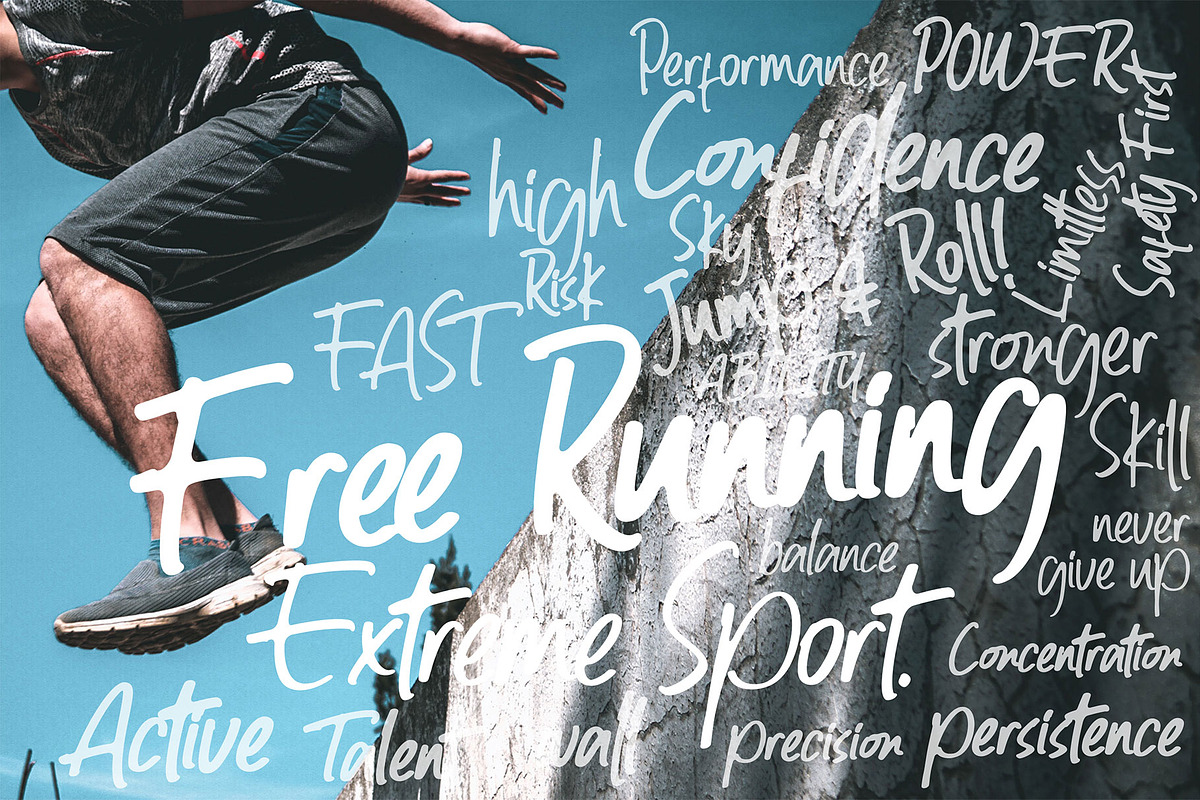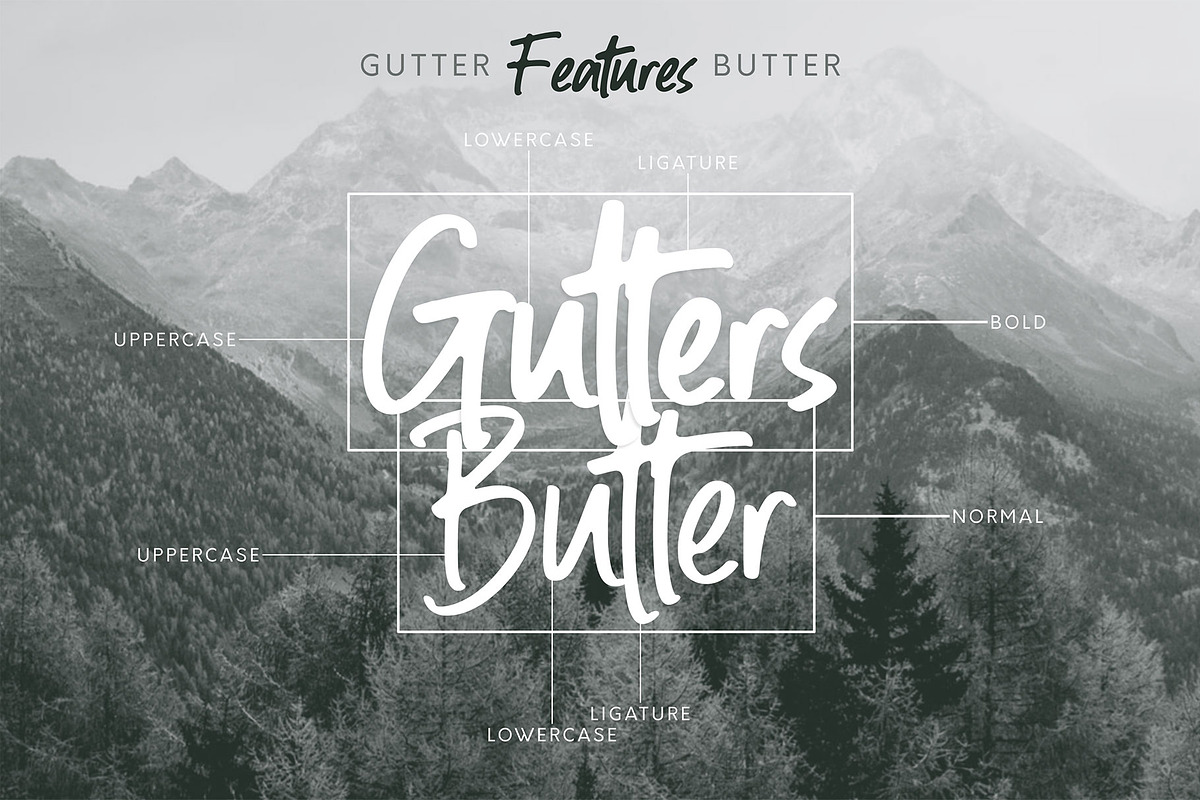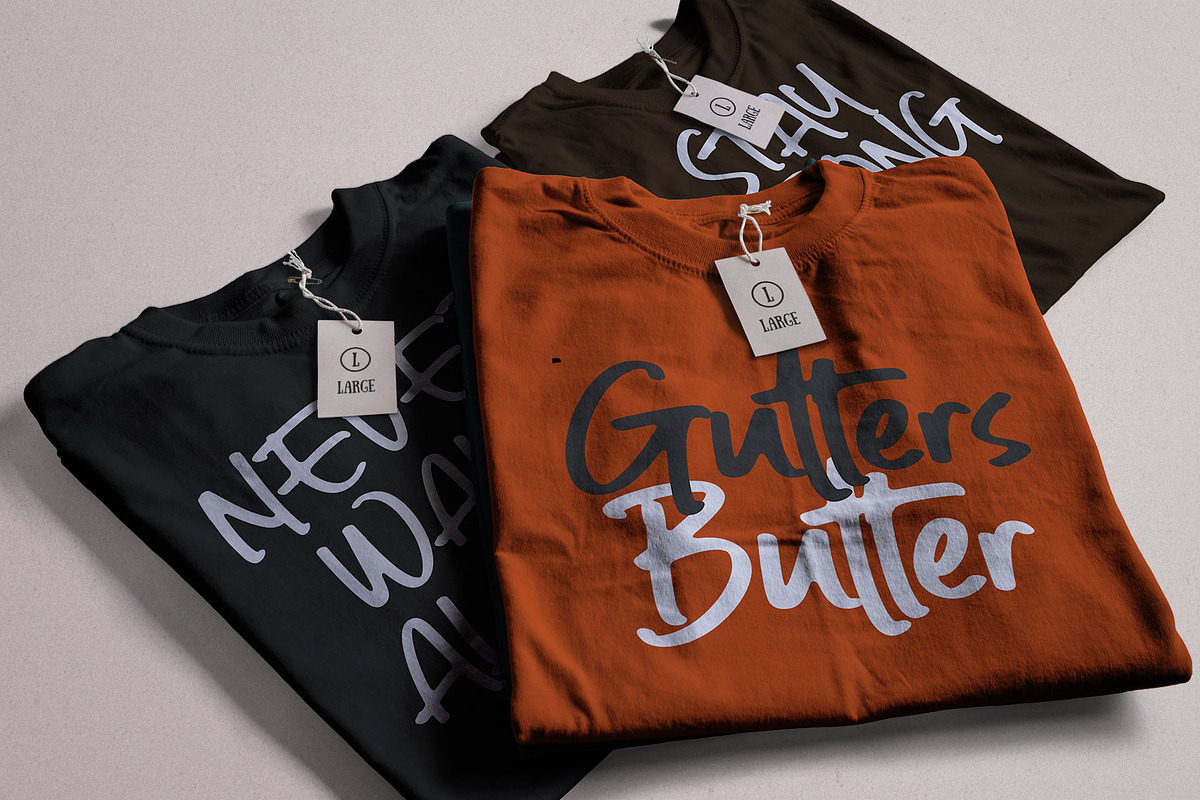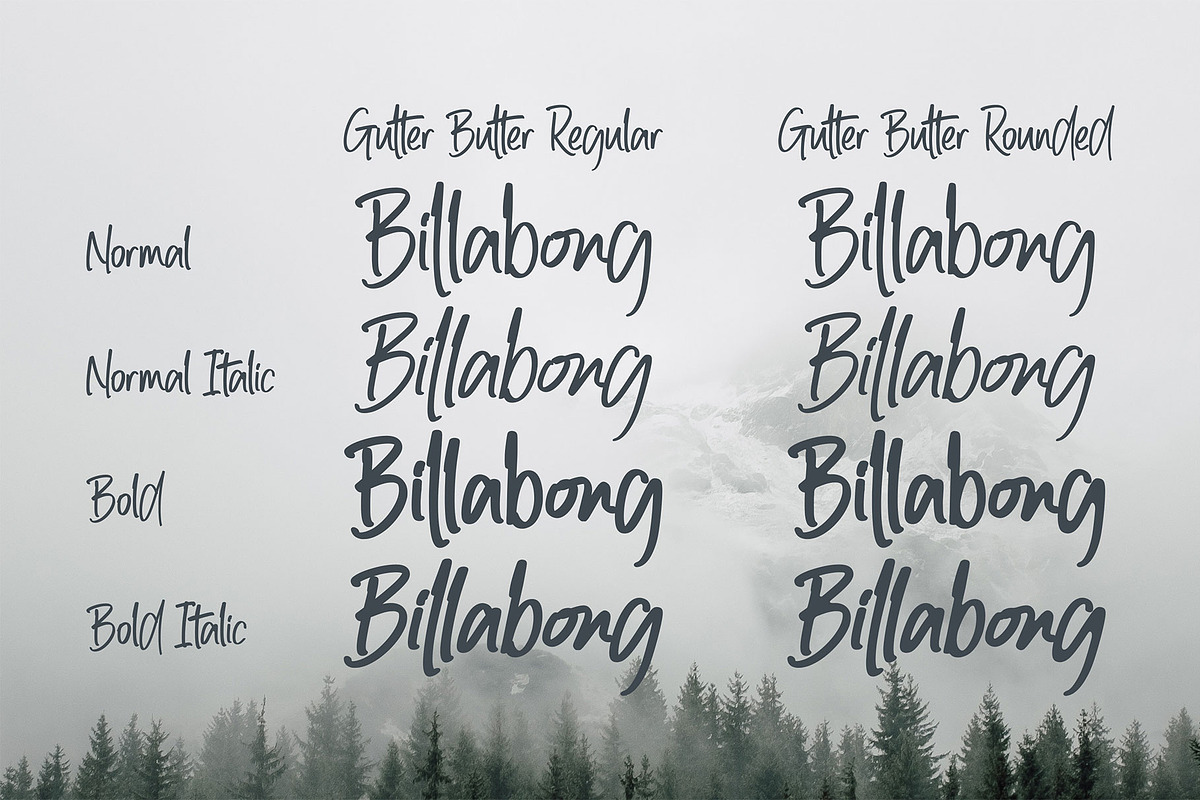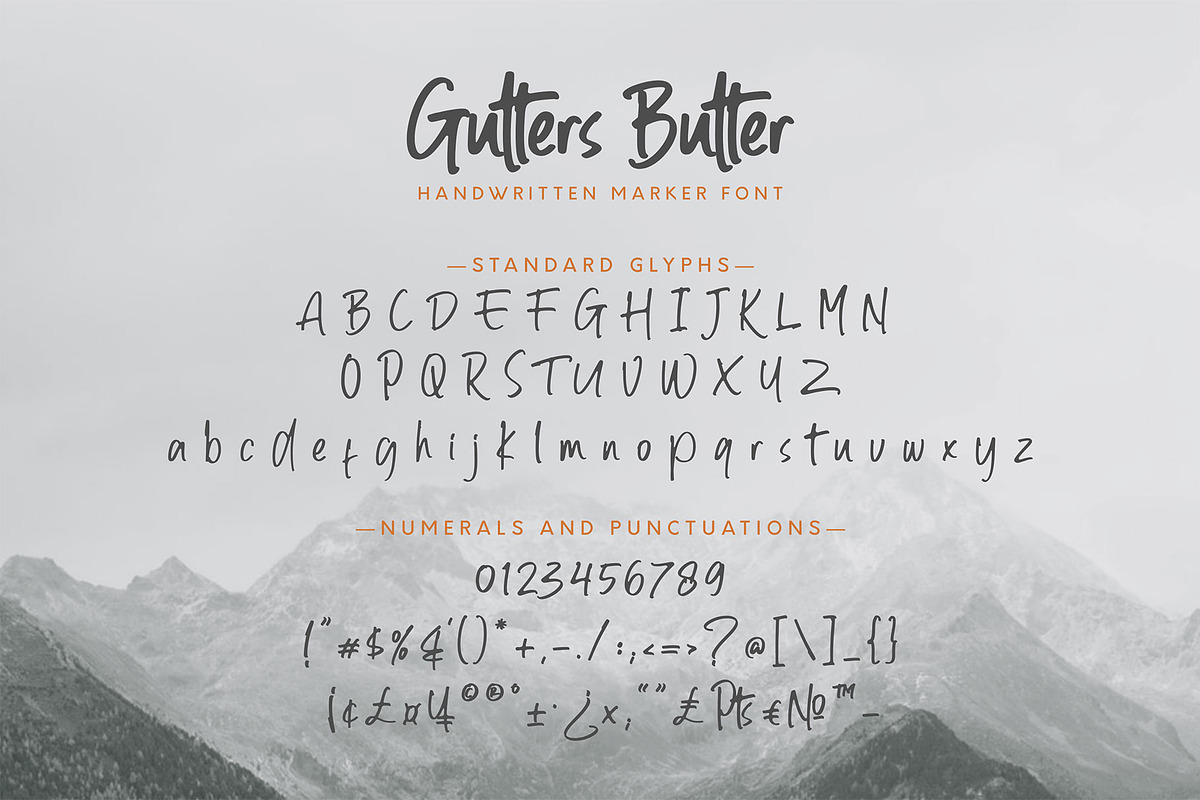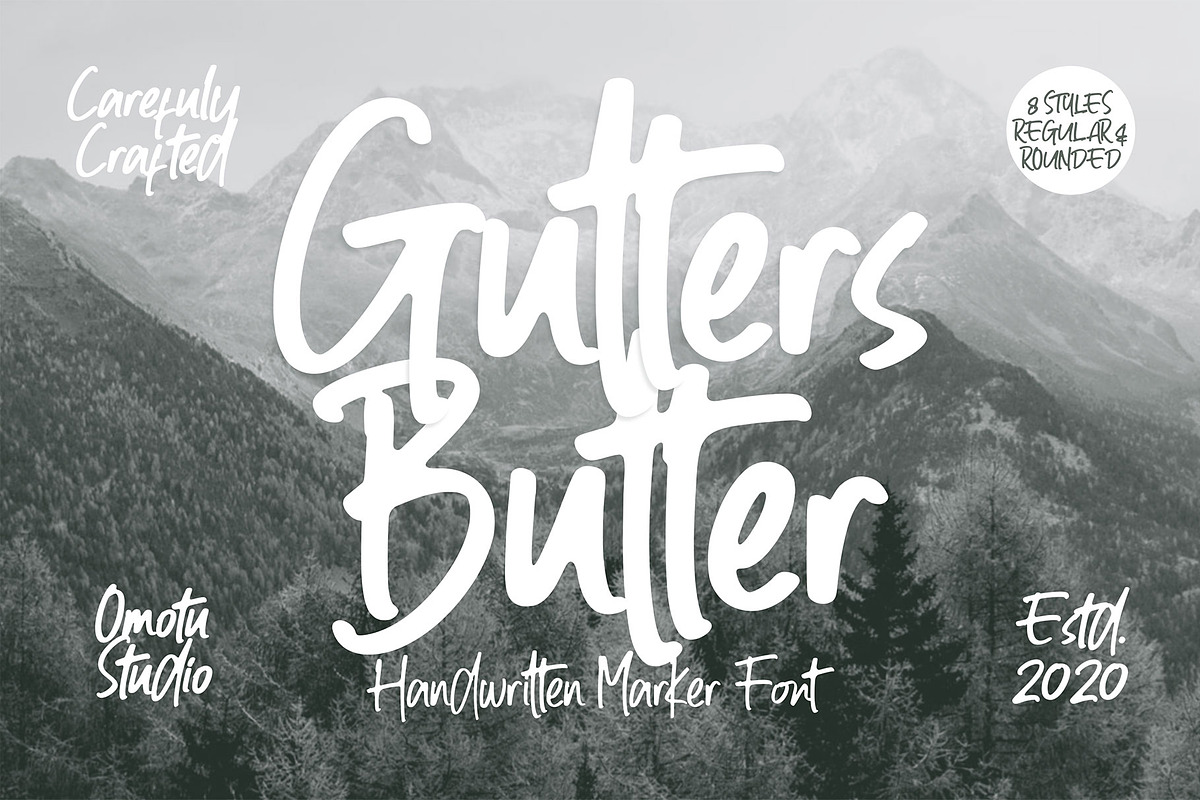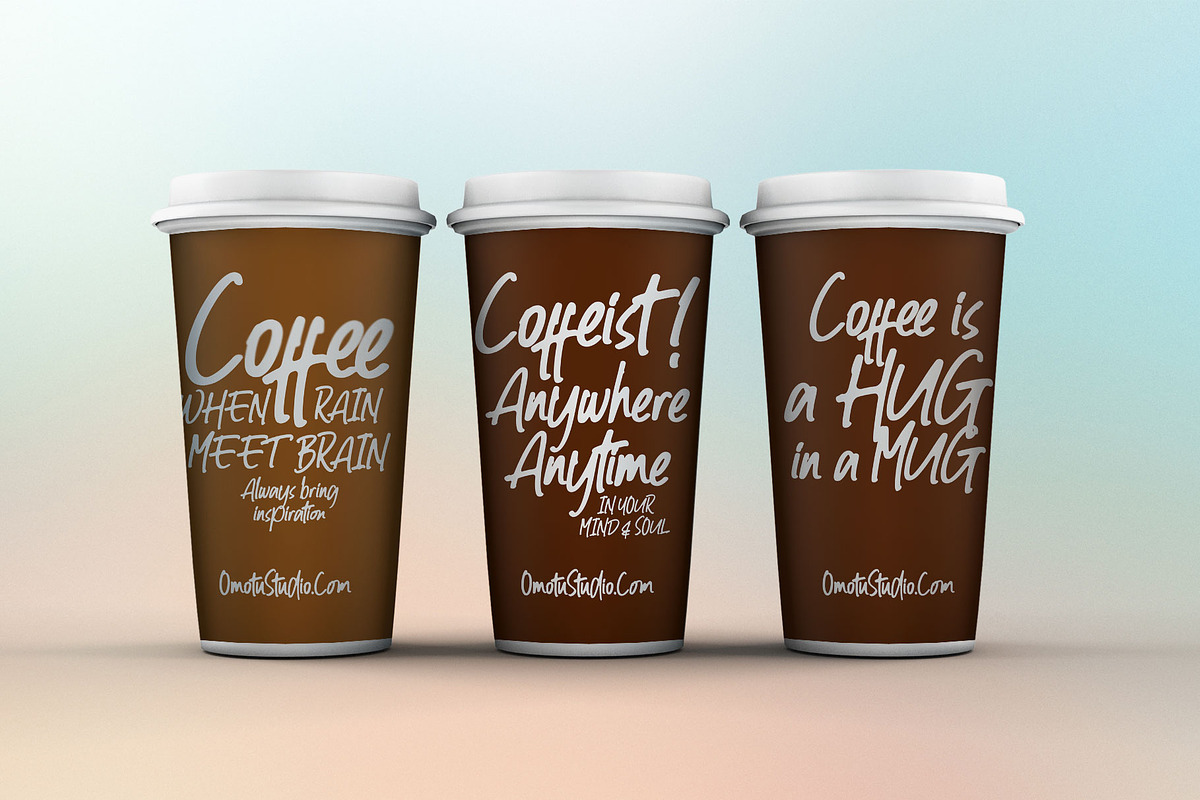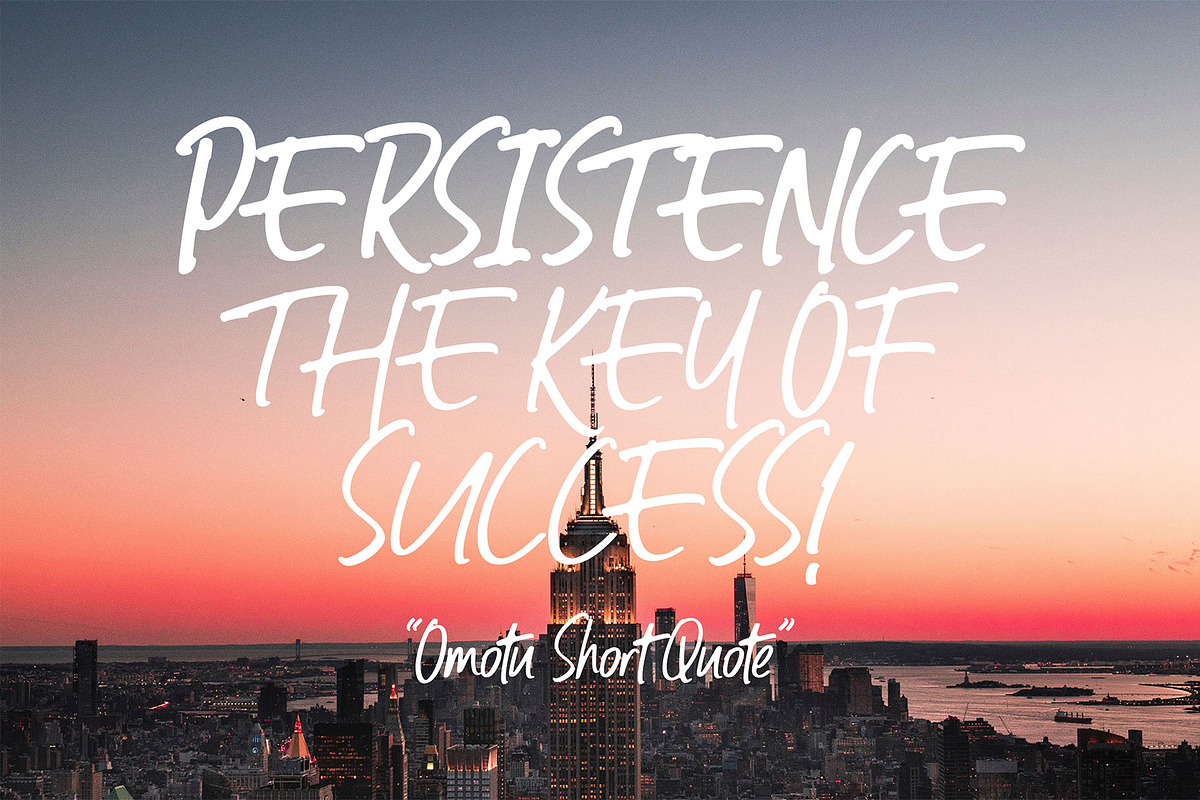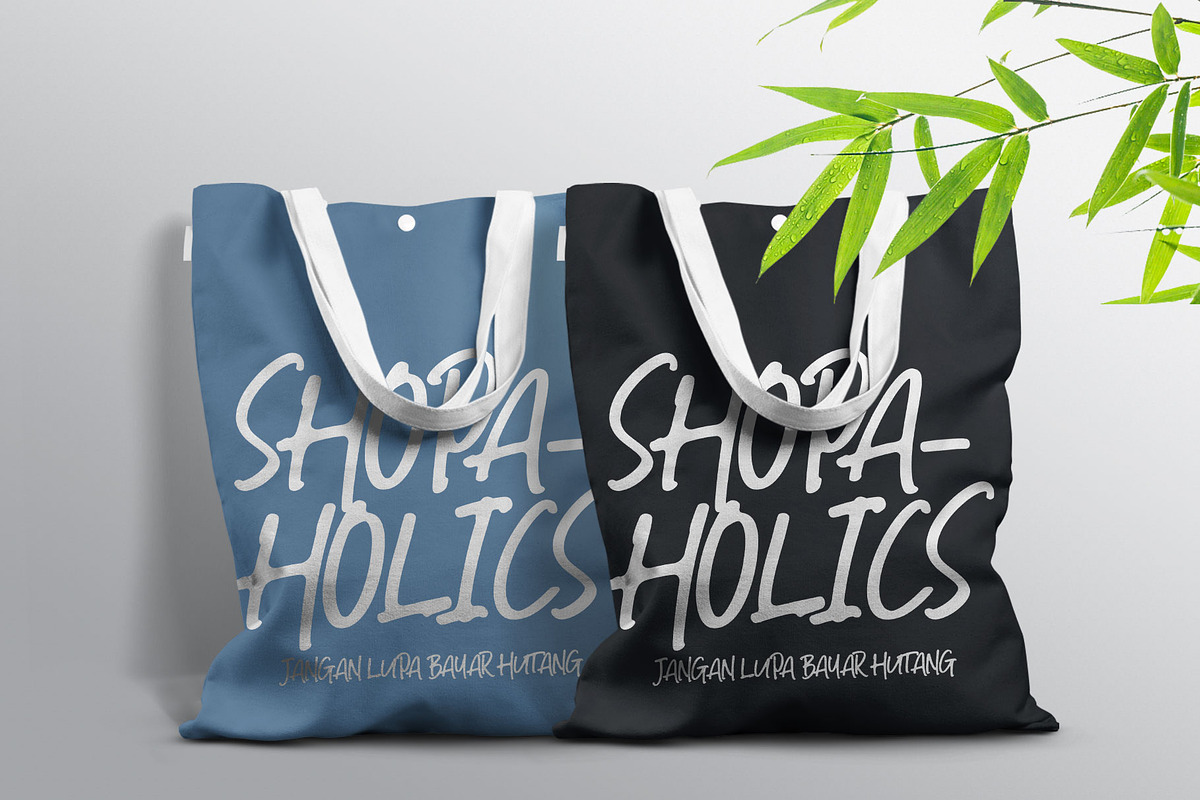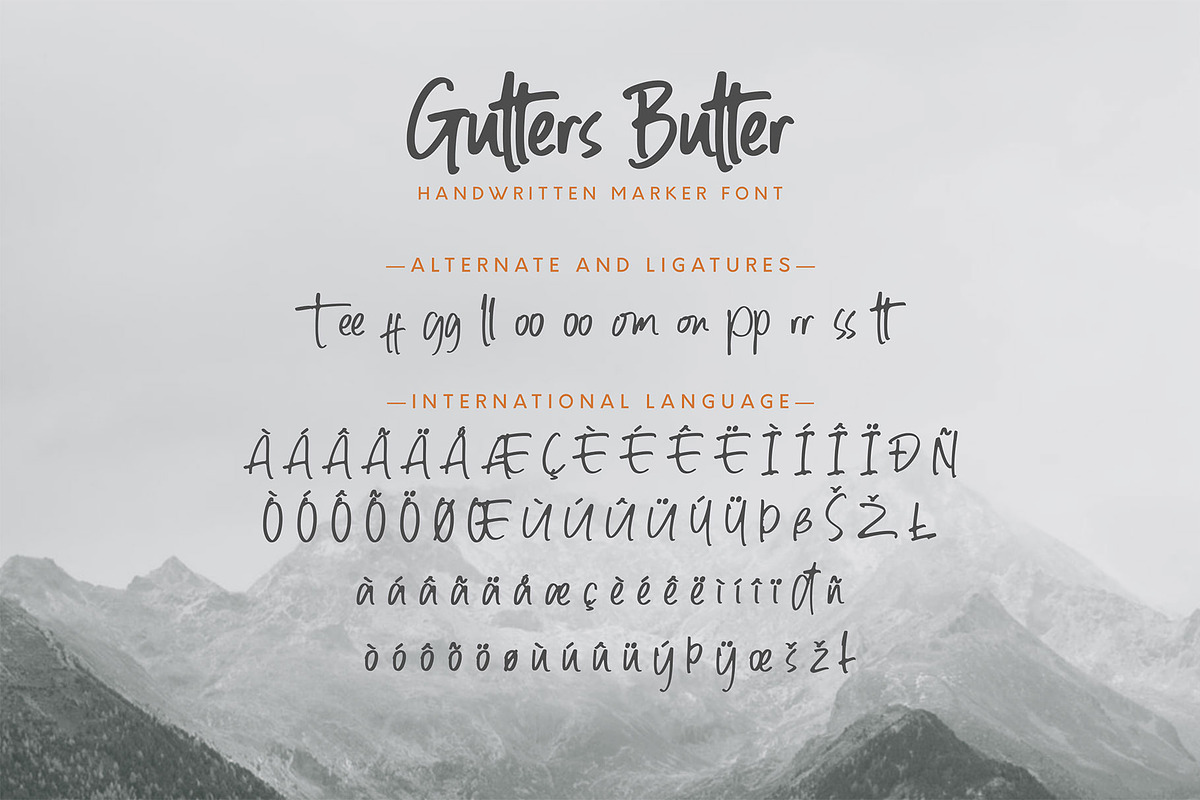
Gutters Butter
Gutters Butter! A handwrittent marker font with 8 styles, Gutters Butter Regular, Gutters Butter Regular Italic, Gutters Butter Regular Bold, Gutters Butter Regular Bold Italic, Gutters Butter Rounded, Gutters Butter Rounded Italic, Gutters Butter Rounded Bold, Gutters Butter Rounded Bold Italic. Gutters Butter font is suitable for branding, logotype, apparel, T-shirt, Hoodie, product packaging, quotes, flyer, poster, advertising, etc.
- Supports international languages
- Opentype feature: ligatures, alternate